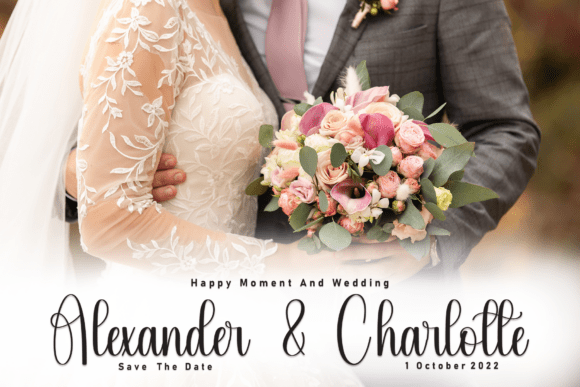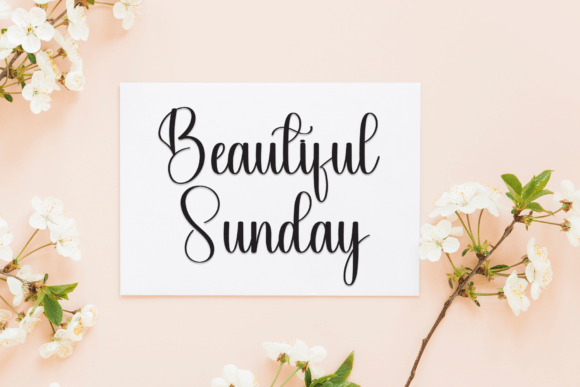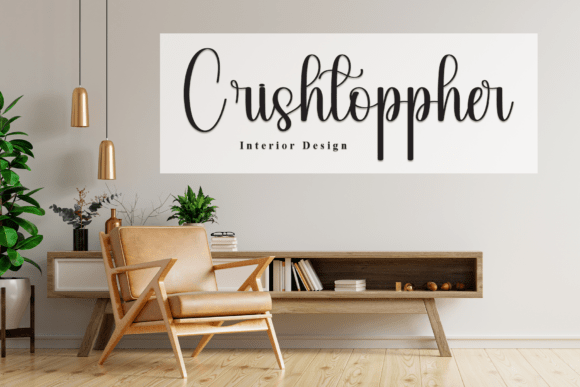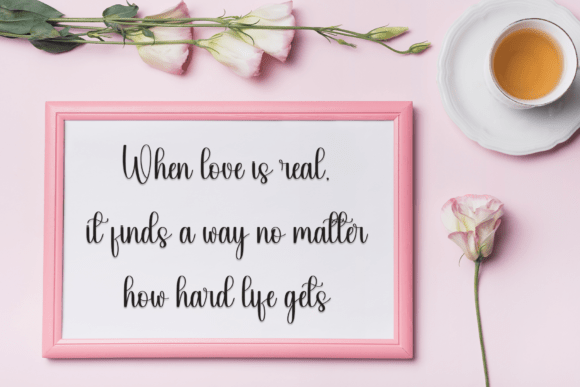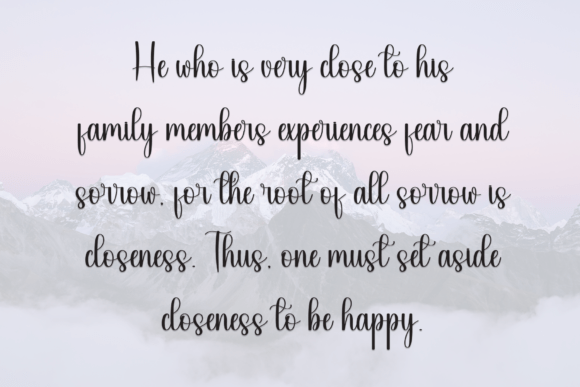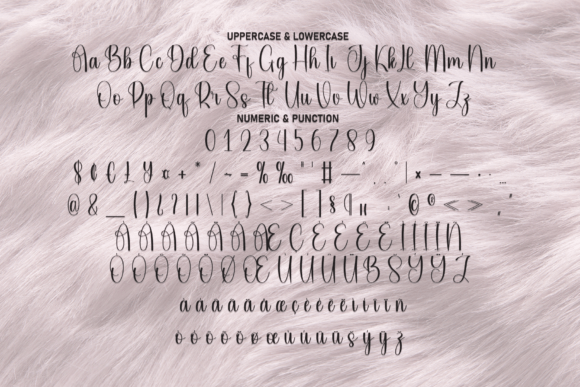
Introducing Furry Font: The Ultimate Handwritten Display Font for Adding Joy to Your Designs
Are you tired of using the same old fonts in your designs? Do you want to add a touch of personality and whimsy to your projects? Look no further than Furry Font, a charmingly delightful and heartwarmingly approachable handwritten display font that’s sure to bring a smile to your face. In this article, we’ll introduce you to the world of Furry Font and explore its many uses in crafting beautiful and engaging designs.
The Embodiment of Sweetness and Friendliness
Furry Font is more than just a font – it’s an experience. It’s an embodiment of sweetness and friendliness that’s sure to make your designs stand out from the crowd. With its playful and carefree vibe, this font is perfect for adding a touch of fun and excitement to any design project. Whether you’re creating wedding invitations, greeting cards, or social media graphics, Furry Font is the perfect choice for designers who want to add a little extra joy to their work.
A Font that Paints Emotions
Every stroke of Furry Font remarkably imprints a playful touch to your design, making it not just words but emotion you are painting with. This font is all about evoking feelings of happiness and warmth, and it’s perfect for designers who want to create designs that resonate with their audience on an emotional level. With Furry Font, you can add a touch of personality to your designs and make them more relatable and engaging.
Furry Font is flawlessly ideal for crafting wedding invitations, greeting cards, or any design canvas desiring a sprinkle of joy. Its playful and romantic vibe makes it perfect for wedding designs, while its friendly and approachable nature makes it ideal for greeting cards and other social media graphics. Whether you’re a designer or a crafter, Furry Font is a great choice for anyone looking to add a touch of whimsy and fun to their designs.
Why Choose Furry Font?
So why choose Furry Font over other fonts? Here are just a few reasons why this font stands out from the crowd:
- Unique and Playful Design: Furry Font has a unique and playful design that’s sure to make your designs stand out from the crowd.
- Emotional Connection: This font is all about evoking feelings of happiness and warmth, making it perfect for designers who want to create designs that resonate with their audience on an emotional level.
- Versatile: Furry Font is perfect for a wide range of design projects, from wedding invitations and greeting cards to social media graphics and more.
- Easy to Read: Despite its playful design, Furry Font is easy to read and understand, making it perfect for designs where clarity is key.
How to Use Furry Font in Your Designs
Using Furry Font in your designs is easy. Here are a few tips to get you started:
- Pair it with Other Fonts: Furry Font pairs well with other fonts, so don’t be afraid to experiment with different combinations.
- Use it for Headings: Furry Font is perfect for headings and titles, where its playful design can really shine.
- Add a Pop of Color: Furry Font looks great with bright and bold colors, so don’t be afraid to add a pop of color to your designs.
In conclusion, Furry Font is a charmingly delightful and heartwarmingly approachable handwritten display font that’s perfect for adding a touch of joy and whimsy to your designs. With its playful and carefree vibe, this font is ideal for designers who want to create designs that resonate with their audience on an emotional level. Whether you’re creating wedding invitations, greeting cards, or social media graphics, Furry Font is a great choice for anyone looking to add a little extra fun and excitement to their work.